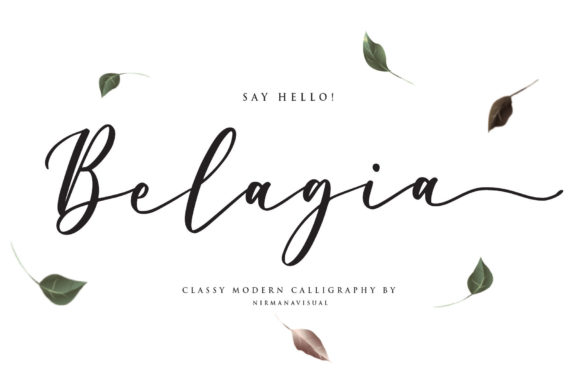
Introducing Belagia Font: A Magical Handwritten Font with Timeless Elegance
In the world of typography, fonts play a crucial role in conveying the tone and personality of a design. For designers and crafters, finding the perfect font can be a daunting task. However, if you’re looking for a font that combines elegance, authenticity, and friendliness, look no further than Belagia Font. In this article, we’ll explore the features and benefits of Belagia Font, and why it’s the perfect choice for making original and outstanding designs.
What is Belagia Font?
Belagia Font is a magical handwritten font that has been carefully crafted with a touch of elegance. It’s a beautiful combination of timeless elegance and authentic calligraphy, making it perfect for a wide range of design projects. Whether you’re creating wedding invitations, branding materials, or social media graphics, Belagia Font is sure to impress.
Key Features of Belagia Font
So, what sets Belagia Font apart from other fonts? Here are some of its key features:
- Timeless Elegance: Belagia Font features an incredibly classic style that exudes elegance and sophistication.
- Authentic Calligraphy: The font has been carefully crafted to mimic authentic calligraphy, giving it a personal and human touch.
- Friendly Feel: Despite its elegant style, Belagia Font still manages to keep a friendly feel, making it perfect for designs that require a approachable tone.
- Versatility: Belagia Font is highly versatile and can be used for a wide range of design projects, from print materials to digital graphics.
Why Choose Belagia Font?
With so many fonts available, why should you choose Belagia Font? Here are just a few reasons:
- Unique and Original: Belagia Font is a unique and original font that will help your designs stand out from the crowd.
- Elegant and Sophisticated: The font’s timeless elegance and authentic calligraphy make it perfect for designs that require a touch of sophistication.
- Easy to Read: Despite its elegant style, Belagia Font is highly legible and easy to read, making it perfect for body text and headlines.
- Highly Versatile: Belagia Font can be used for a wide range of design projects, from wedding invitations to branding materials.
How to Use Belagia Font in Your Designs
Now that we’ve explored the features and benefits of Belagia Font, let’s talk about how to use it in your designs. Here are a few tips:
- Pair it with Other Fonts: Belagia Font pairs perfectly with other fonts, such as sans-serif fonts or script fonts.
- Use it for Headlines and Body Text: Belagia Font is highly legible and can be used for both headlines and body text.
- Experiment with Colors and Textures: Belagia Font looks great in a variety of colors and textures, so don’t be afraid to experiment and find the perfect combination for your design.
In conclusion, Belagia Font is a magical handwritten font that combines timeless elegance and authentic calligraphy. Its unique and original style makes it perfect for designers and crafters who want to create original and outstanding designs. With its highly versatile nature and ease of use, Belagia Font is sure to become a staple in your font collection.